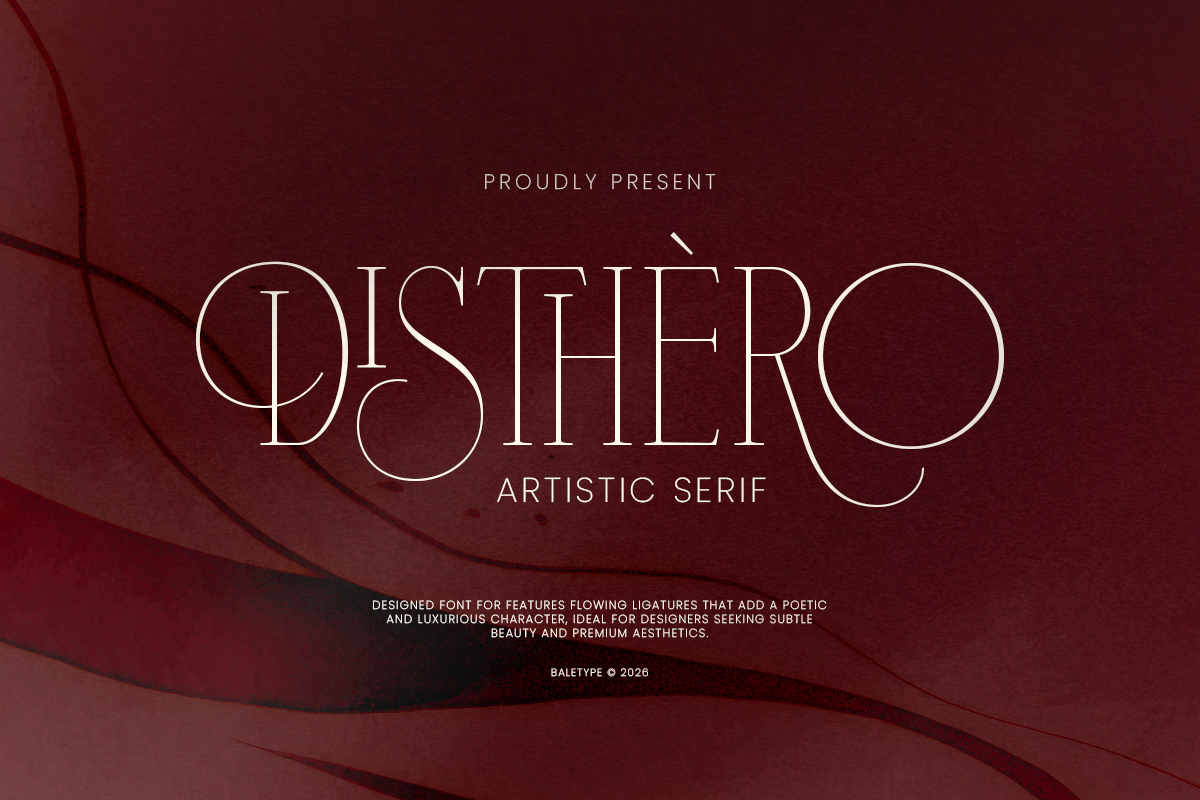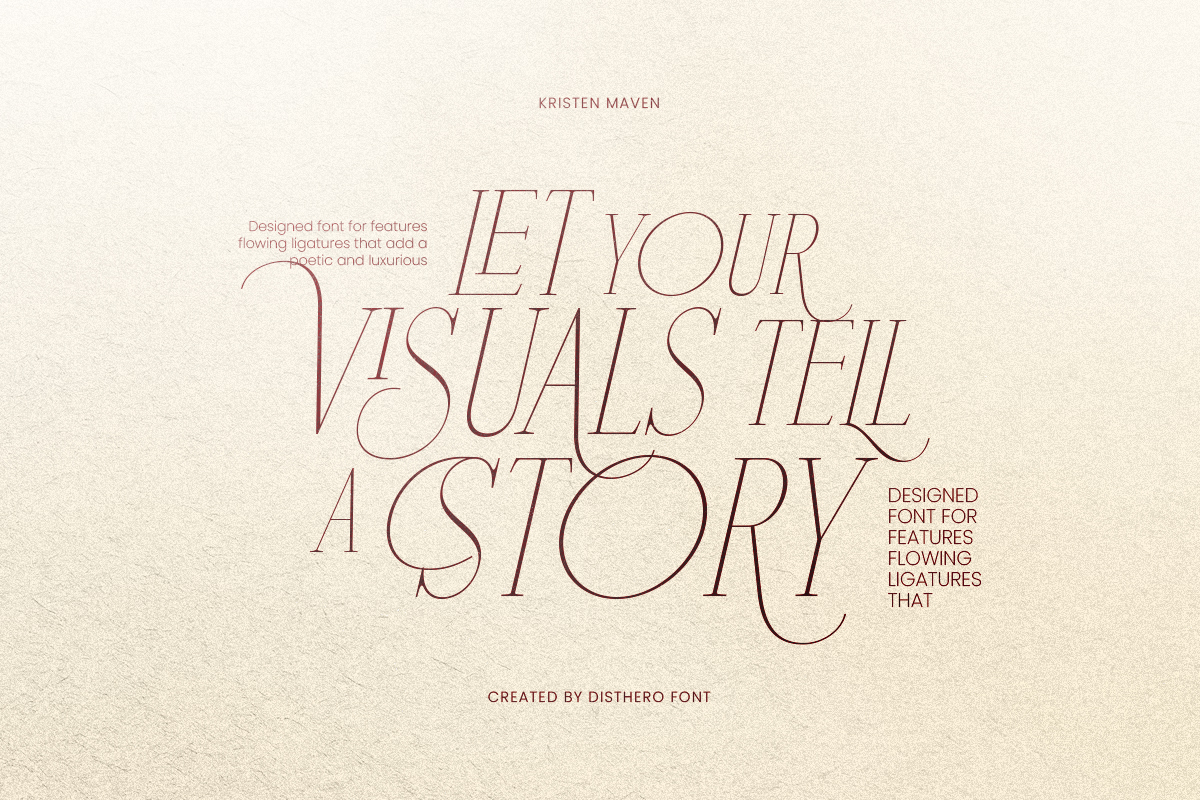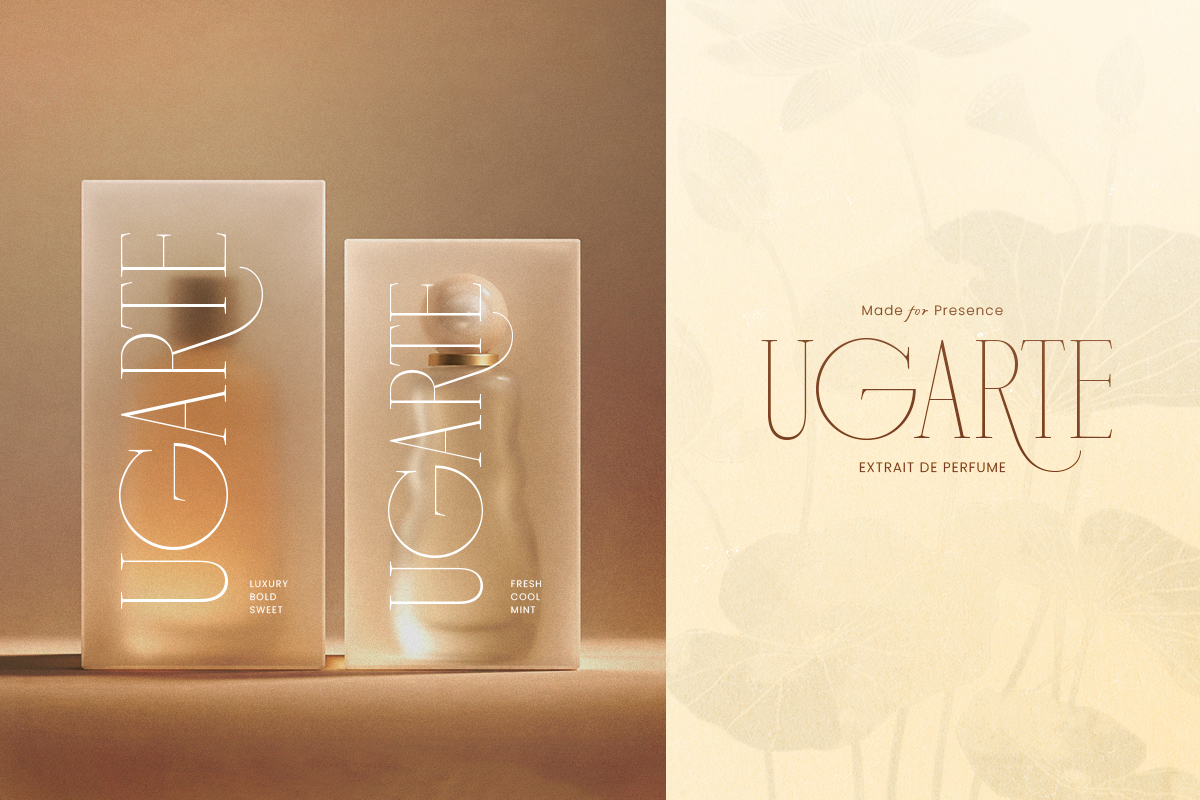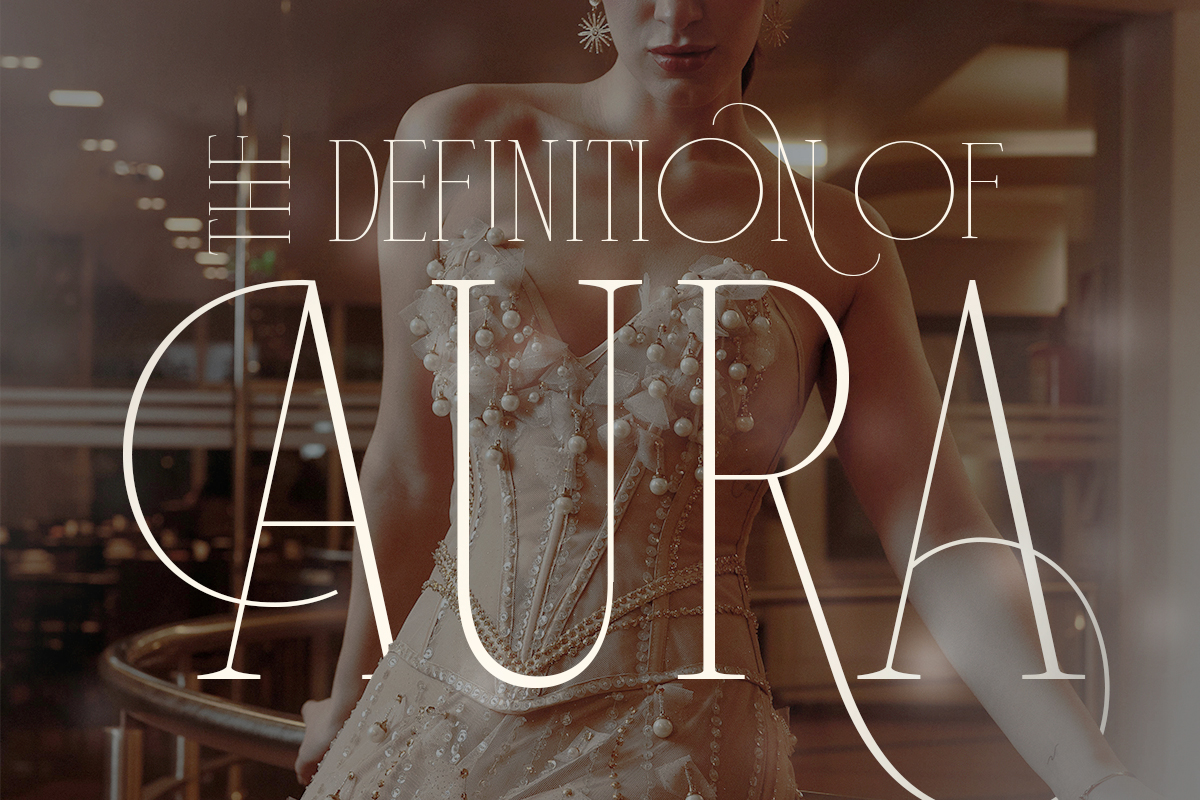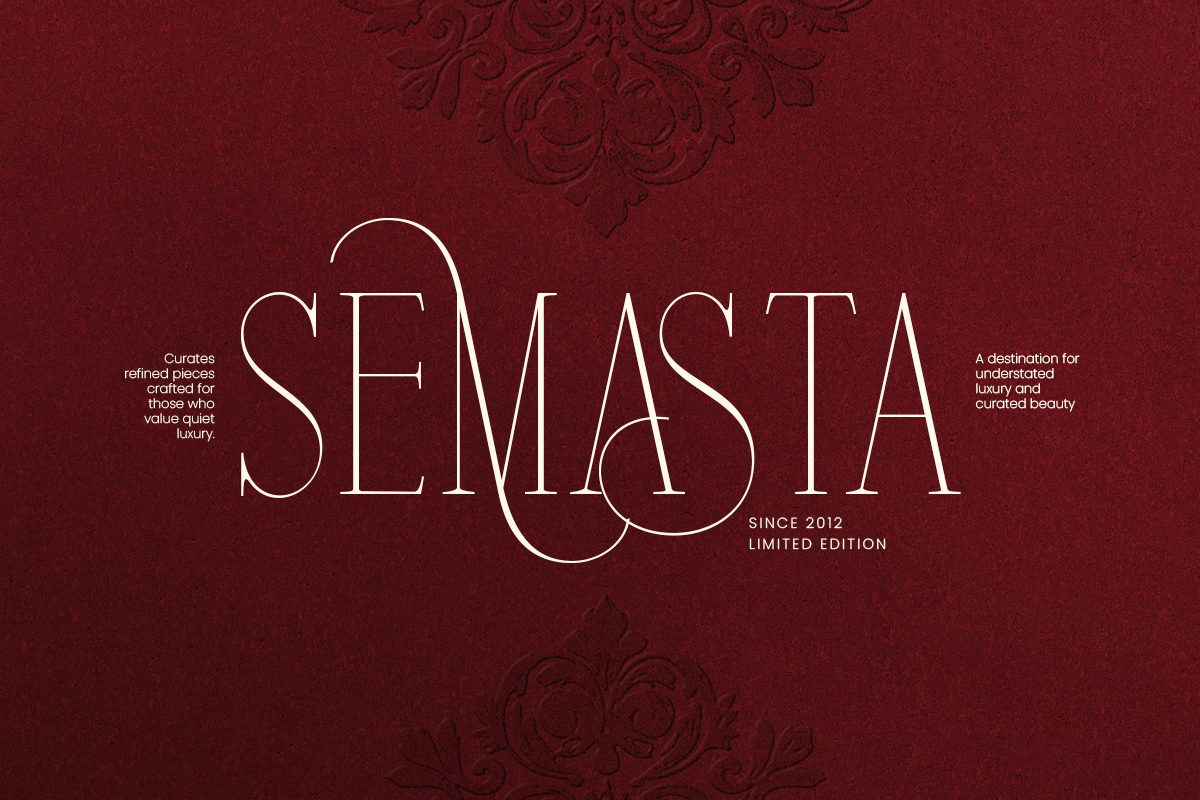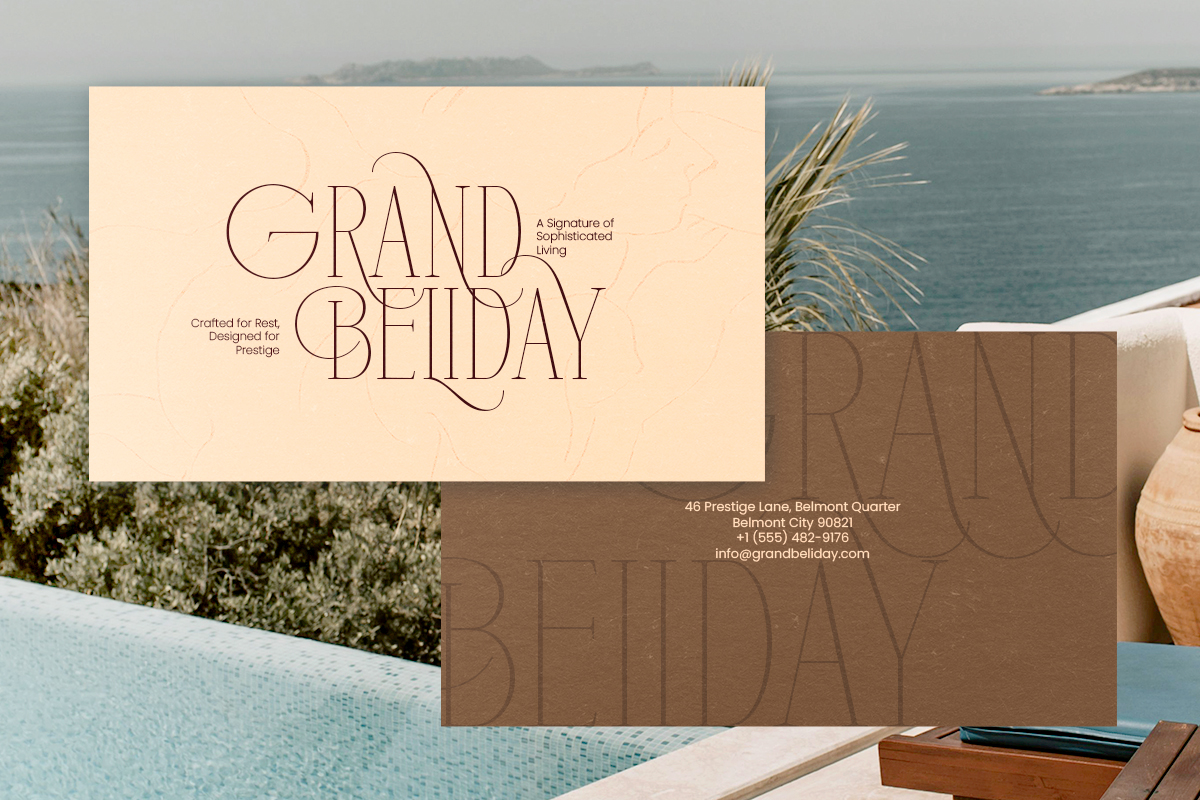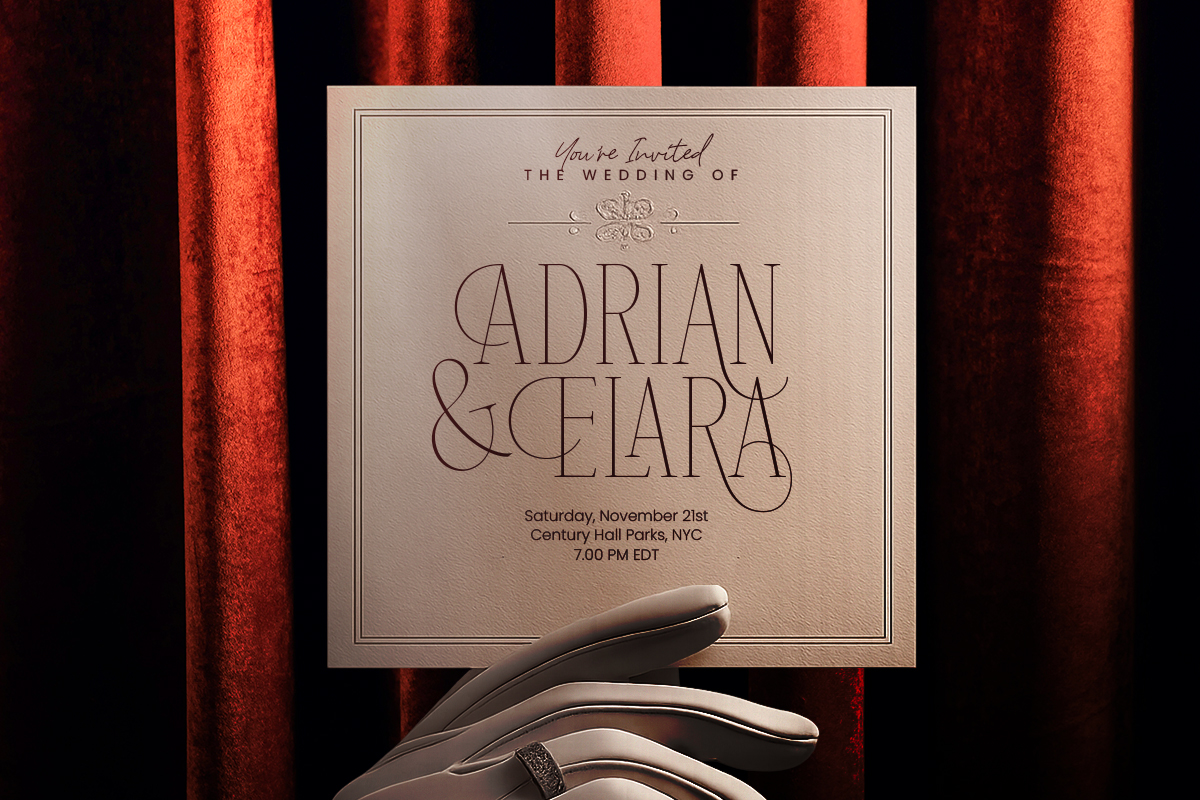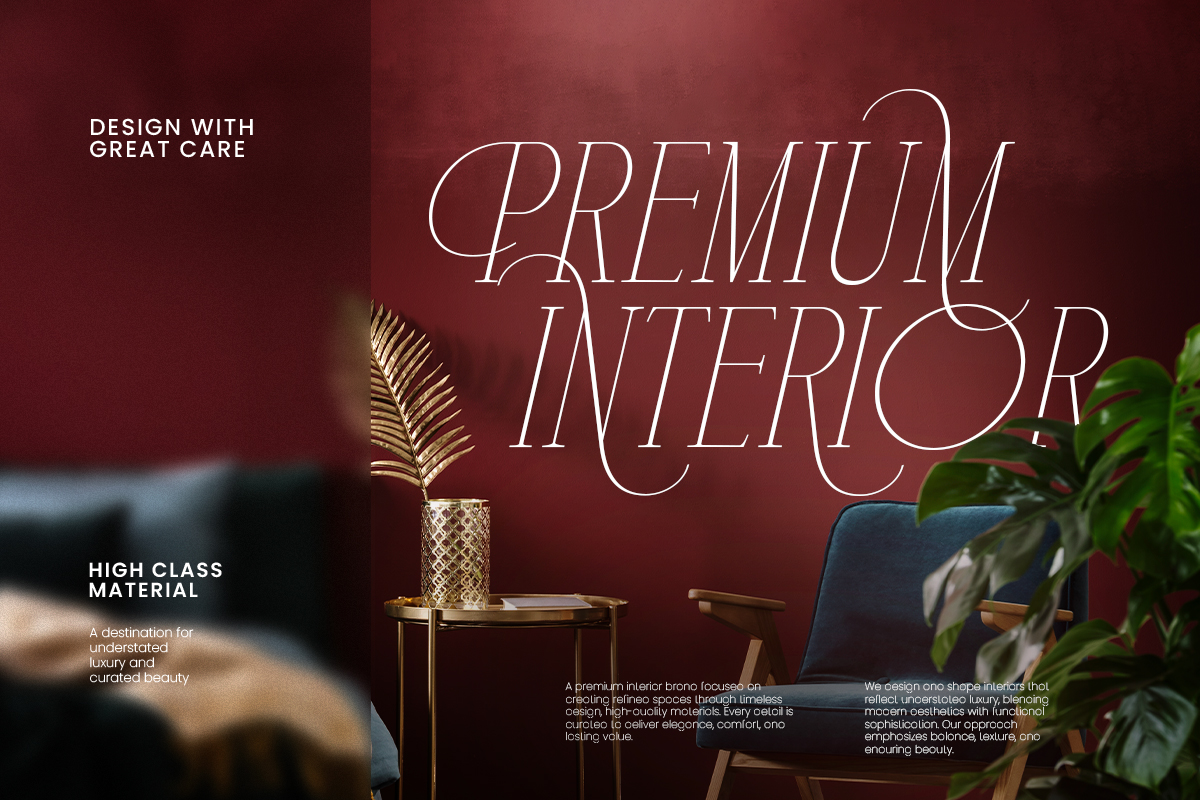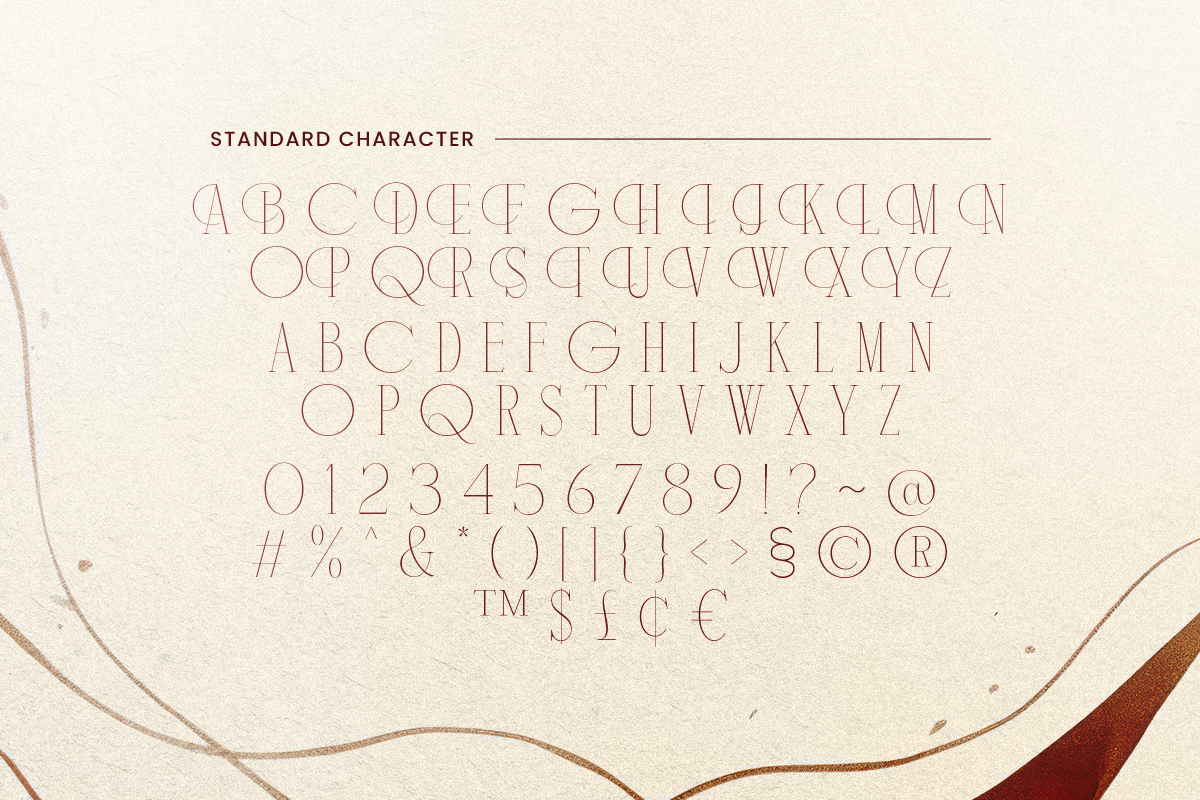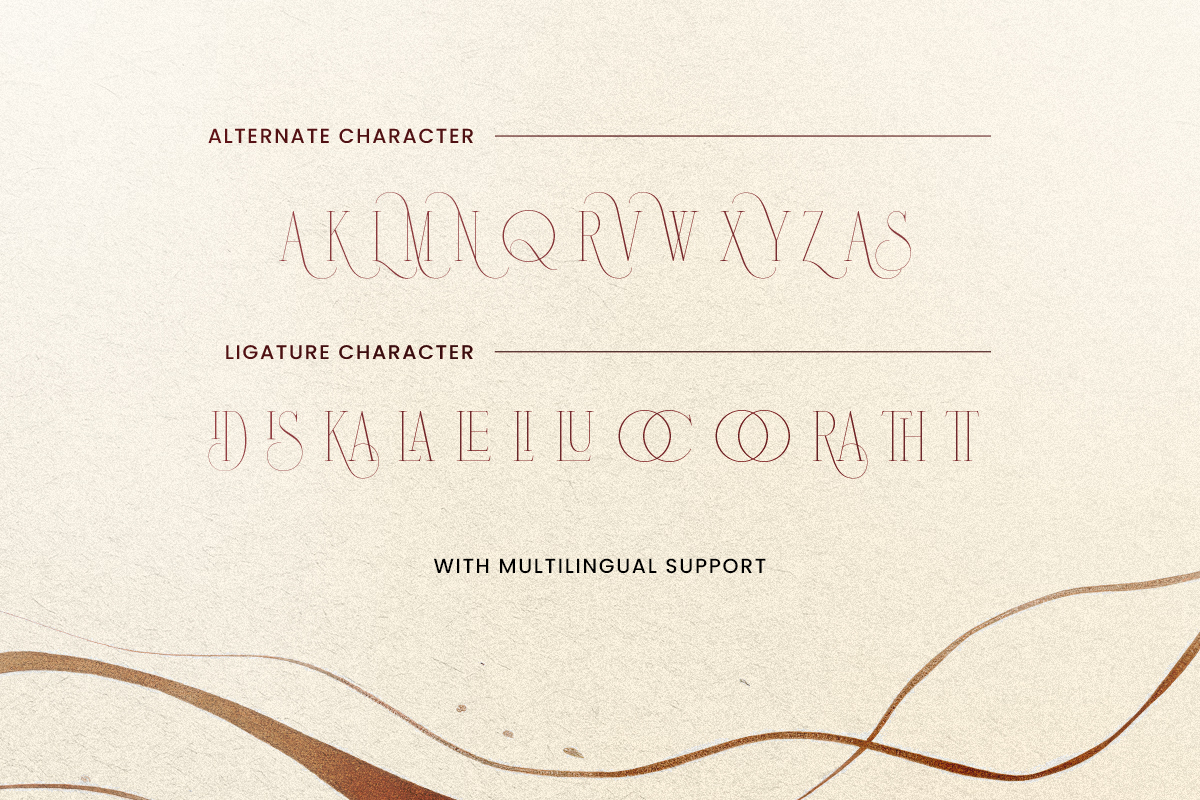
Disthero - Artistic Light Serif
Disthero is a light and tall modern serif with alternate and ligatures. With modern and stylish touch, you can use this font for any purposes such as branding, logo, quotes, wedding invitations or any project that need to look classy and luxury. This font also comes with italic style and already multi language support.
Disthero – Artistic Light Serif
Disthero is a light and tall modern serif with alternate and ligatures.